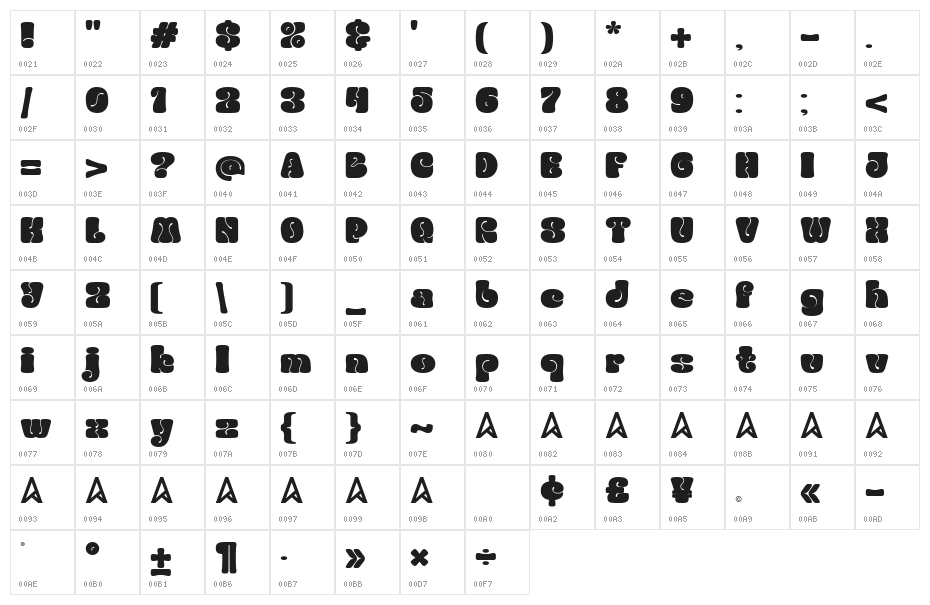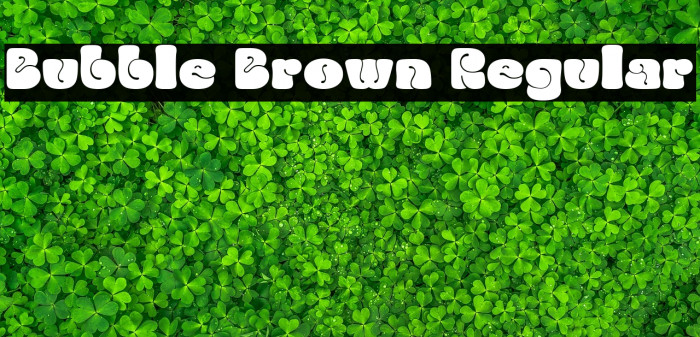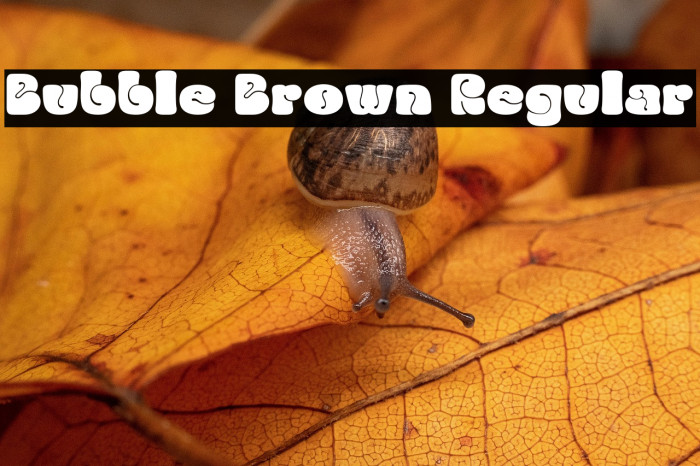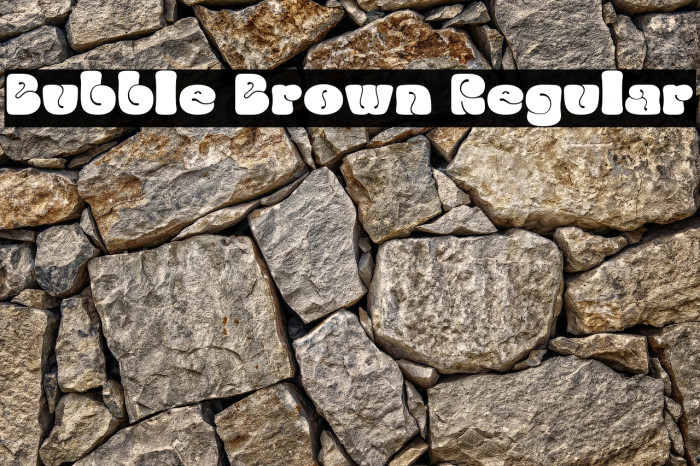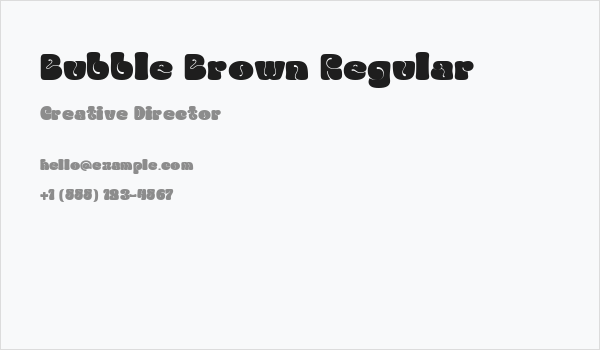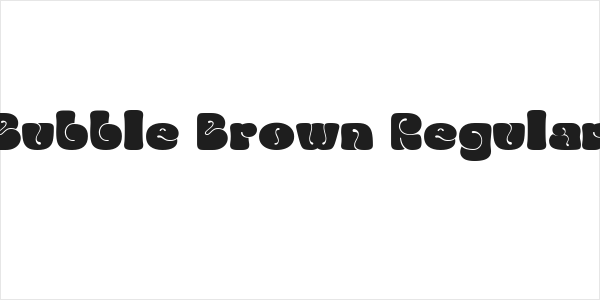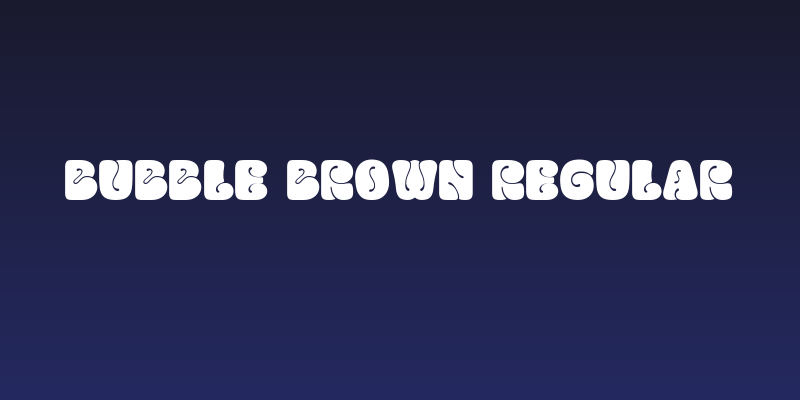
Bubble Brown Regular Font
Bubble Brown Regular Description
This font features a playful and bold design with a bubbly appearance. The characters are rounded and thick, giving a sense of fun and whimsy. The strokes are consistent in width, contributing to a uniform look across all characters. The overall style is reminiscent of retro or vintage designs, making it ideal for projects that require a touch of nostalgia. The font's unique style is eye-catching and can easily draw attention, making it suitable for creative and artistic applications.
| Proposed Projects | Ideal for posters, children's books, party invitations, and branding that requires a fun and nostalgic touch. |